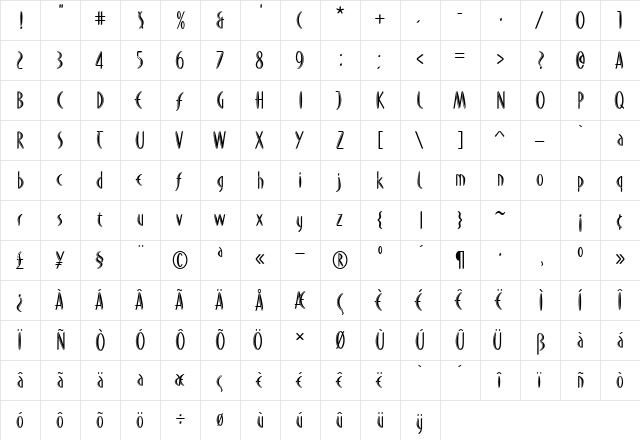
DuMoore Inline Regular
Design Context for DuMoore Inline Typeface
DuMoore Inline brings ornamental detail and strong personality to headlines and identities, where visual impact matters more than quiet functionality.
Font Pairing: Pair with a clean neutral sans-serif for body copy to let DuMoore Inline's character lead without overwhelming the composition.
Pro Tip: Treat DuMoore Inline as the centrepiece of your typographic hierarchy. One strong heading set in a decorative face can carry an entire layout.